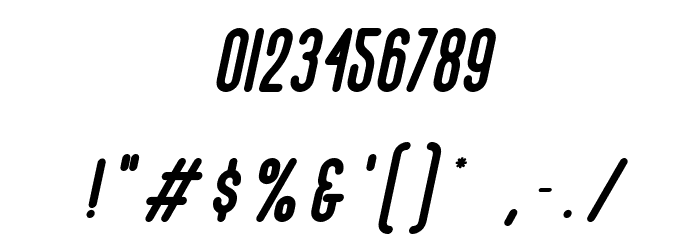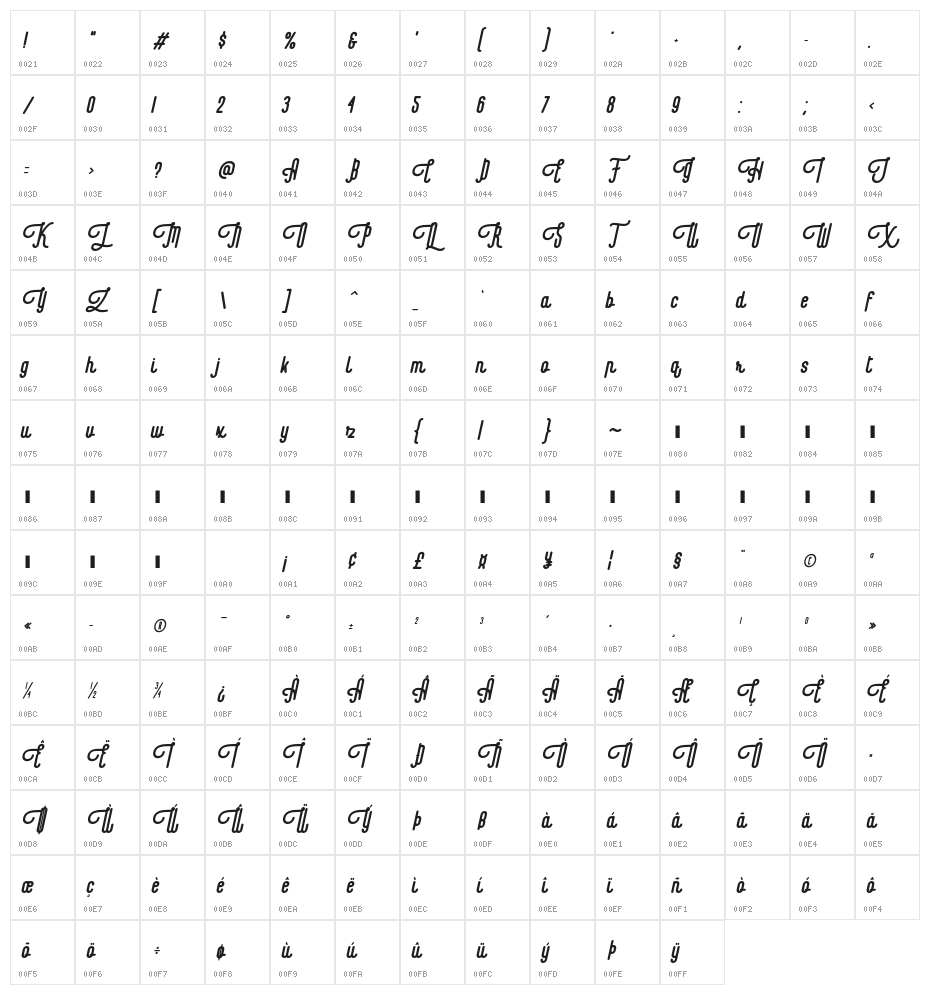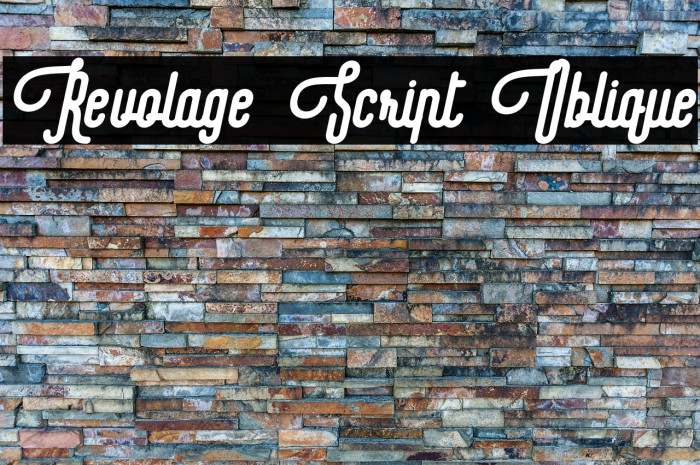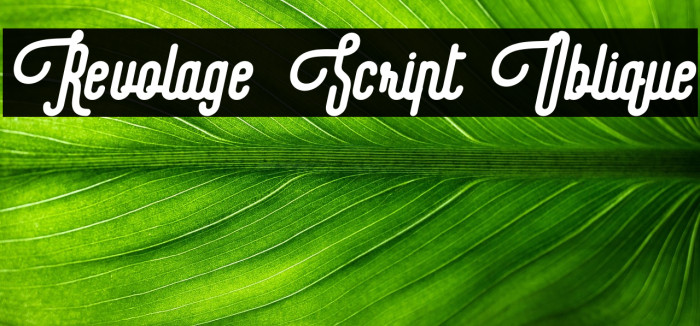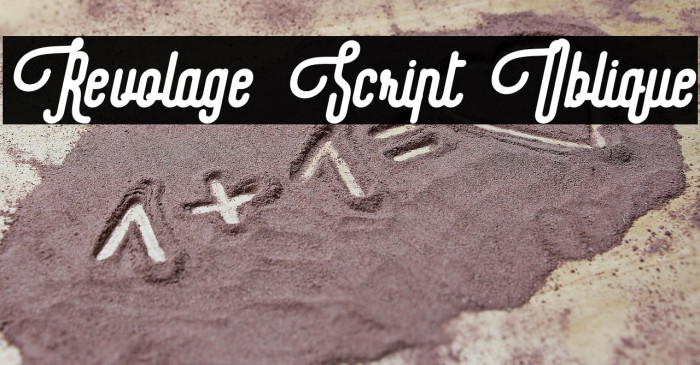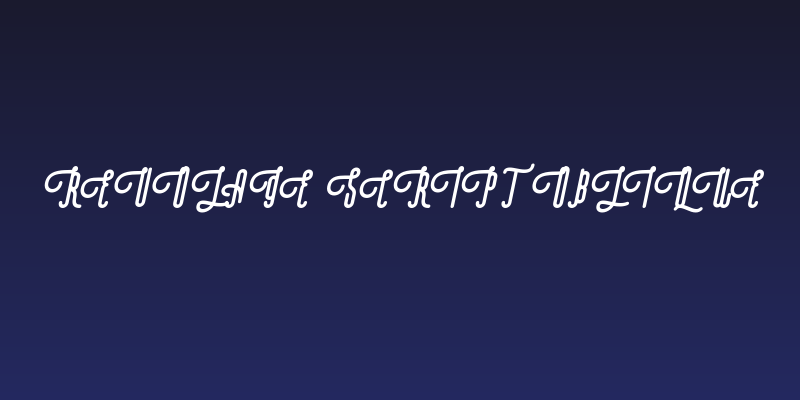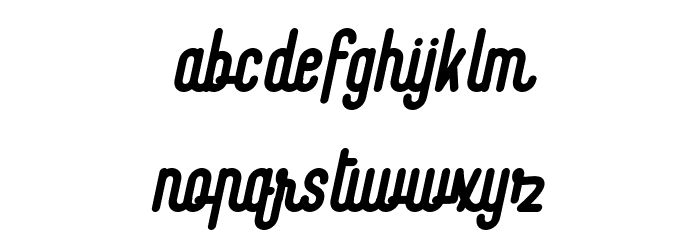
Revolage Script Oblique Font
Revolage Script Oblique Description
This font features a dynamic and flowing script style with an oblique slant, giving it a sense of movement and elegance. The characters are connected in a cursive manner, with smooth curves and loops that create a harmonious and fluid appearance. The uppercase letters are bold and prominent, while the lowercase letters maintain a consistent flow. The numbers and special characters are designed to match the overall script style, ensuring a cohesive look across all elements. This font is ideal for projects that require a touch of sophistication and flair.
A dynamic and flowing script font with an elegant oblique slant from Uncategorized fonts.
- Proposed Projects: Ideal for wedding invitations, elegant branding, and stylish social media graphics.
- Overall Style: Elegant
- Use Case: Logos, Invitations, Social media graphics